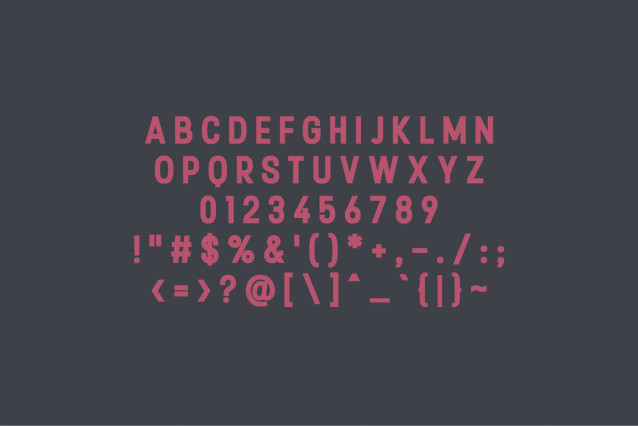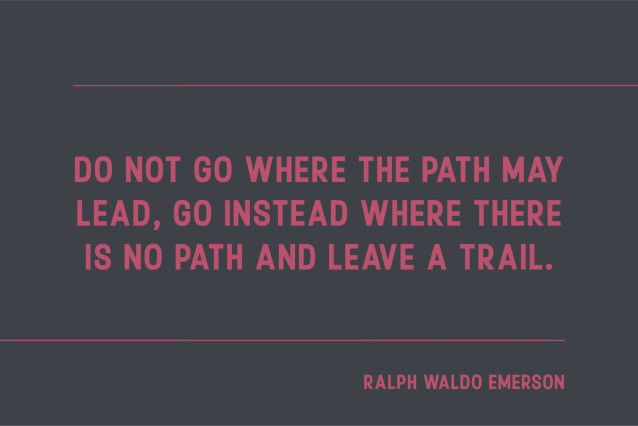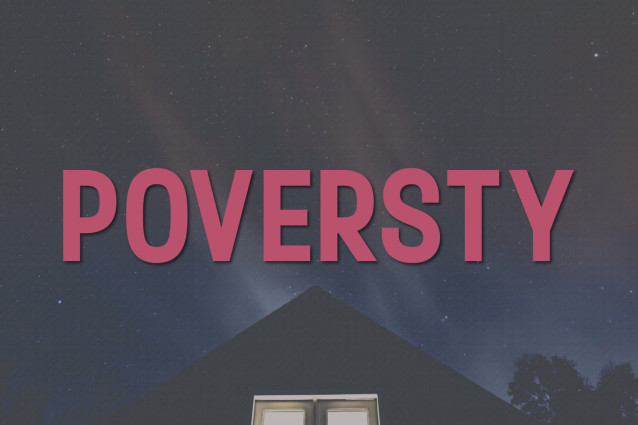
Poversty Font
Poversty Font – a modern, classy sans serif typeface. A sans serif typeface that contains upper characters, number 0-9 and a range of punctuation and symbols. An extremely versatile font, perfect for logos, weddings, invitations, quotes, advertisements, print, magazines, and more!